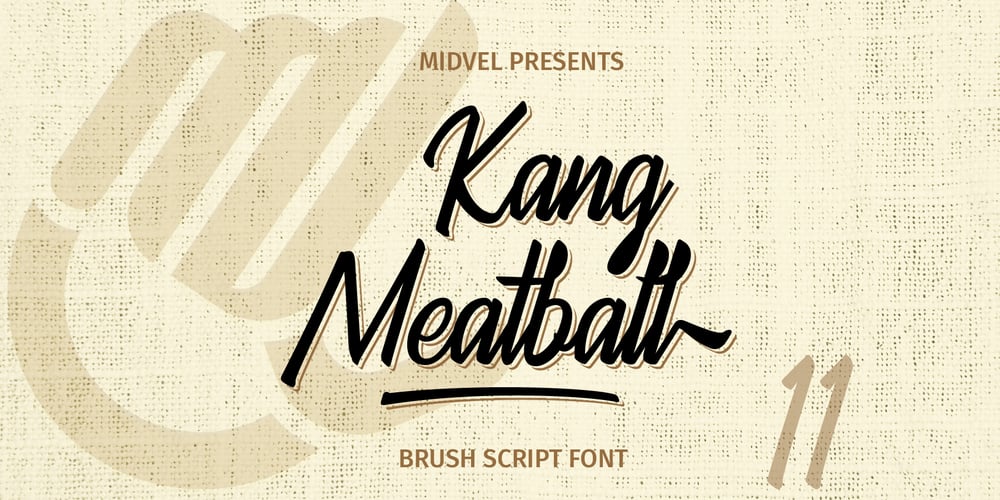
Kang Meatball
Kang Meatball font
Kang Meatball Font Family was designed by Ahmad Ja’far Shadiq and published by Midvel. Kang Meatball contains 1 styles and family package options. Kang meatball inspired by brush pen calligraphy. Characters shape based on brush pen stroke. Start by making words with brush pen on paper. Some words that have suitable shape are selected to be the initial inspiration for the font design. We draw calligraphy for uppercase, lowercase and number character. After drew Calligraphy character, next process is design digital lettering. We design Uppercase, lowercase, and number character in digital. Add puctuation and ligature characte. There are some style set, endswash and underline swash character that make lettering design more unique. We encoded unique character in Private Use Area (PUA). Kang meatball has 305 characters including uppercase, lowercase, numbers, punctuation, set style, and underscore swash.Kang meatball is suitable for many design. This brush font is suitable for logos, posters, advertising, gift cards, name cards, and T-shirt design. The font is suitable for logos, name cards, and gift cards. Fonts can be combined with visual elements to create posters, advertising, t-shirt designs or book cover designs.Feature :· Uppercase· Lowercase· Number· Punctuation· Multilingual (Accented Letters)· Ligature· Swash· Style set (01-04)· PUA Encoded CharactersIf you have question or request for any languange glyph, please contact us.